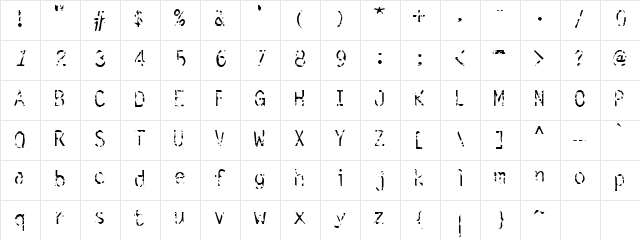
simulation Regular
Design Context for simulation Typeface
simulation takes a measured approach to typography — its balanced proportions and neutral character make it a reliable workhorse for both digital and print work.